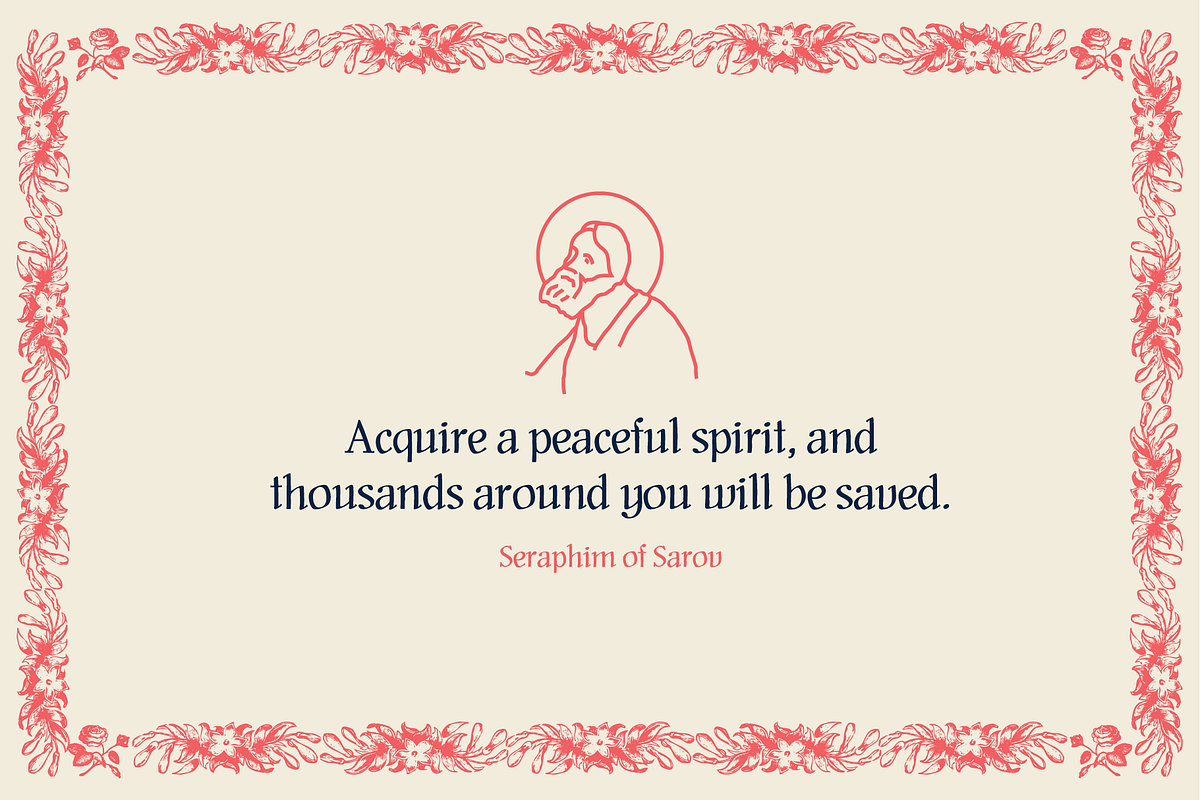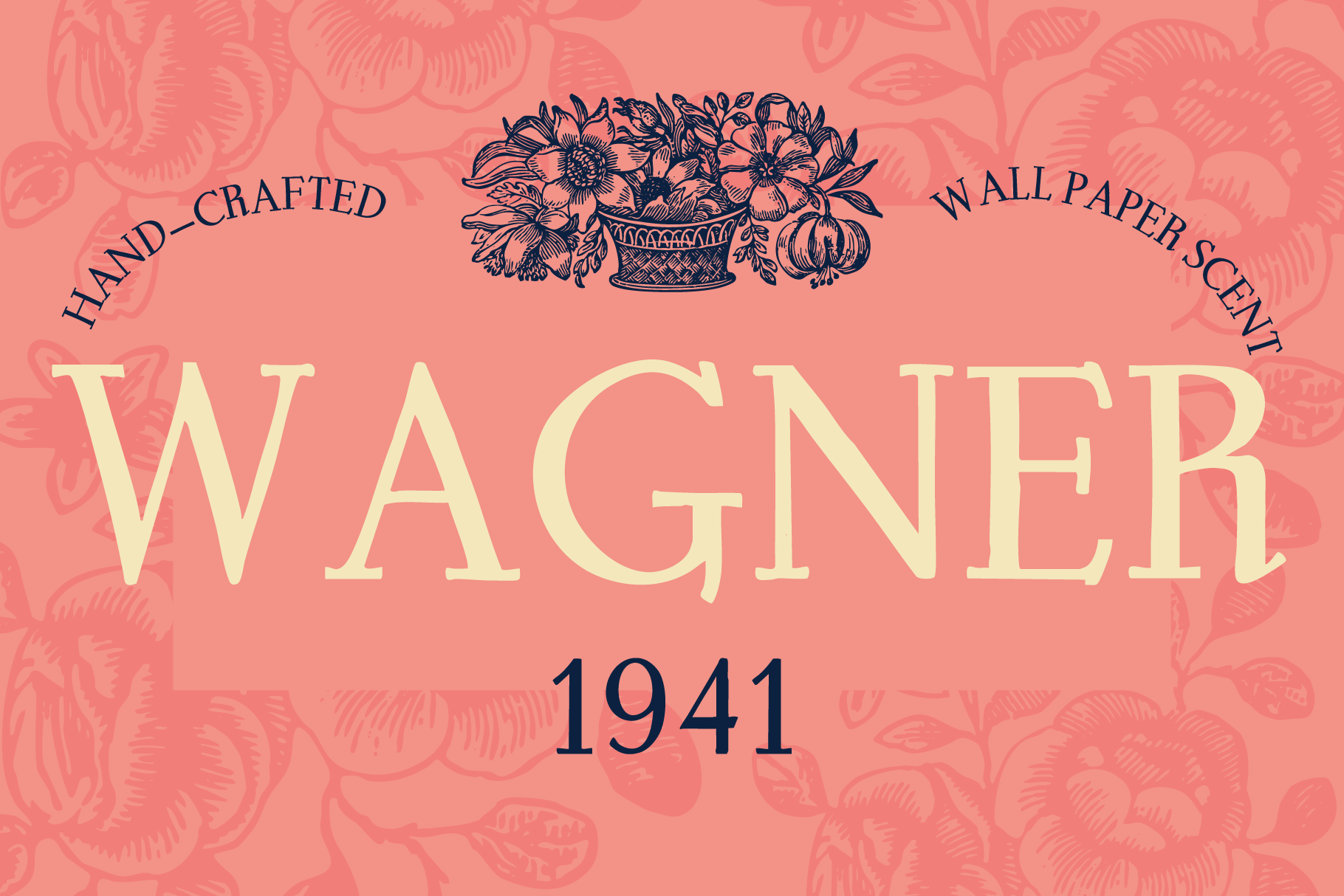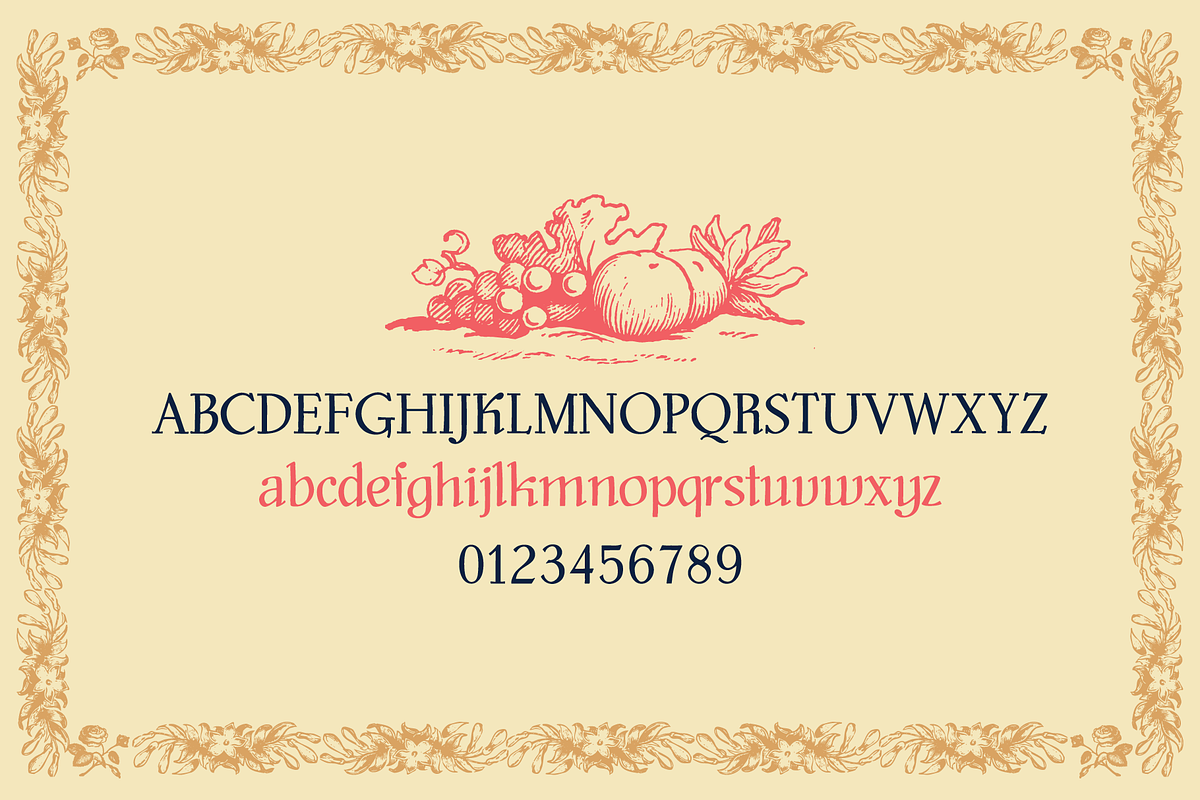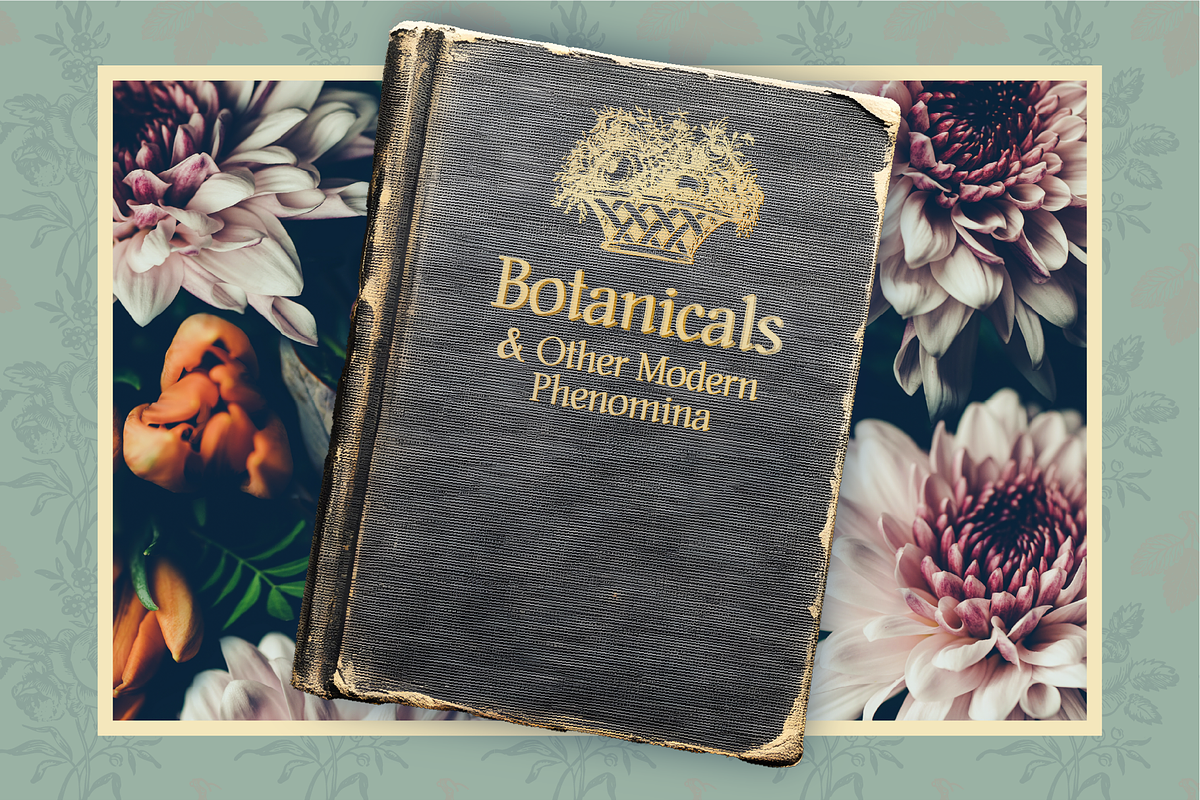
Wagner 1941 Vintage Antique font
Wagner 1941 is one of those fonts that smells a little musty, like a room stuck in time.
It WAS trendy, it looked good at the time, but it now feels a little dated.
Perfect, in it's own way.
Use it for old books, brands that need a "used to be expensive" feel or, even, can you believe it (?!) tee shirts for your uncles candy shop. (I would use it that way)